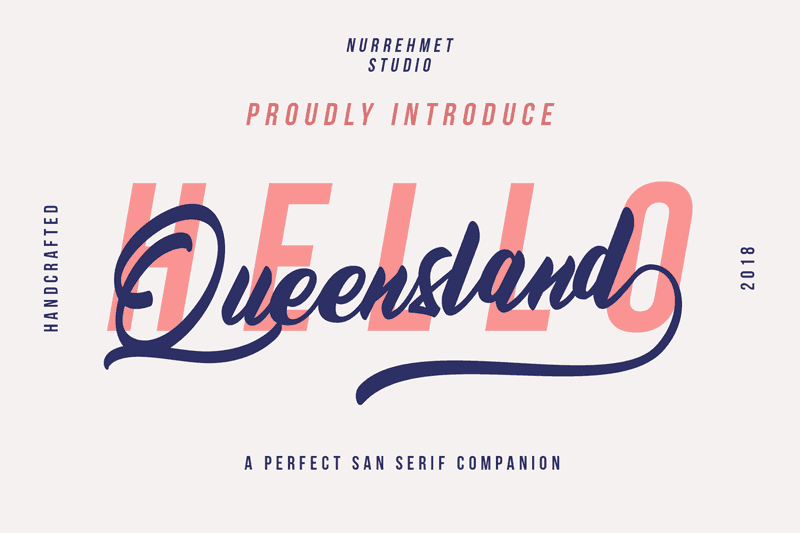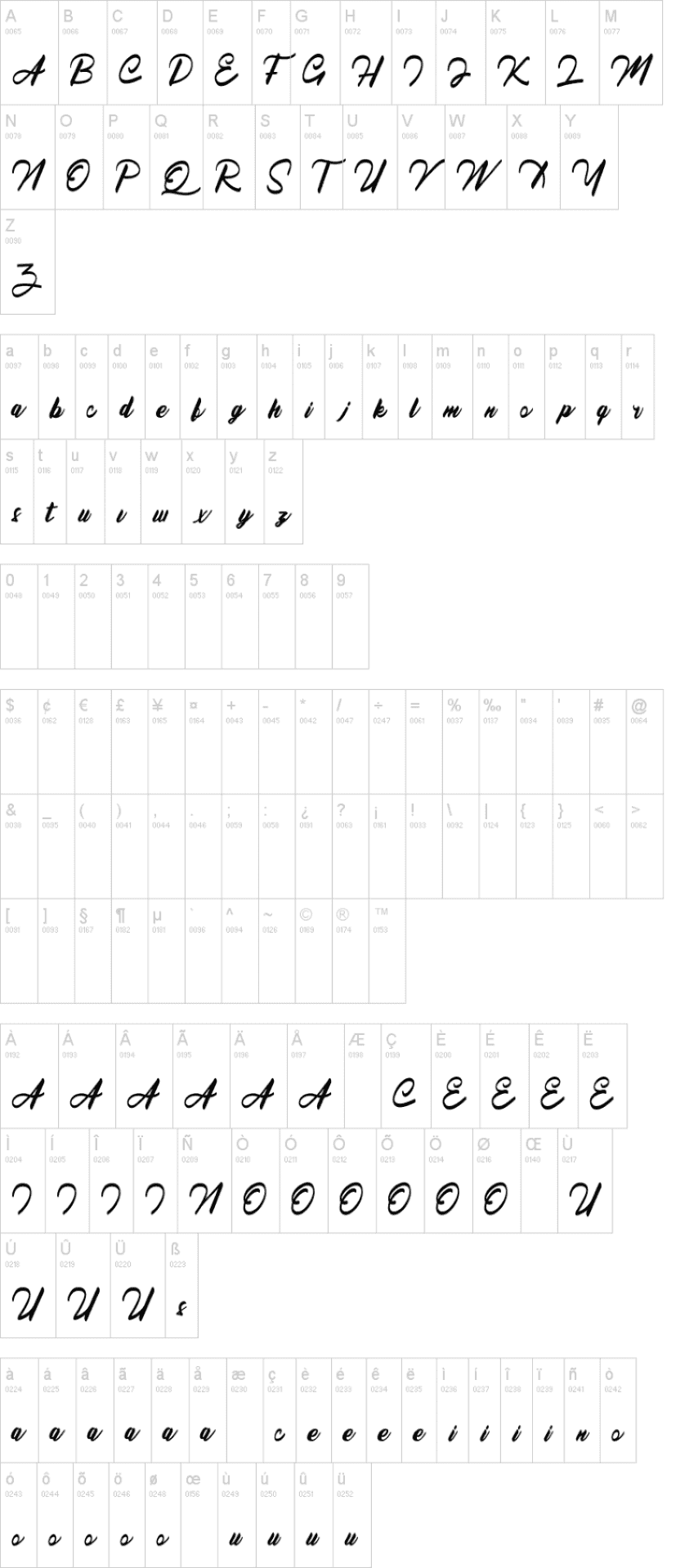
Discover Queensland Font, part of the Brush collection—a versatile and unique font perfect for adding a personal touch to your projects. Download it for free and enjoy crafting designs with style, from invitations to social media posts. This font is available exclusively for personal use, giving you the freedom to create without limits. Unlock your creativity with Queensland Font today!
Queensland is a wonderful Brush font that can be used for commercial and non-commercial purposes and is created by Nurrehmet Studio. The free version of this app supports all the letters of the alphabet both in upper and lower case and some other special characters as well.